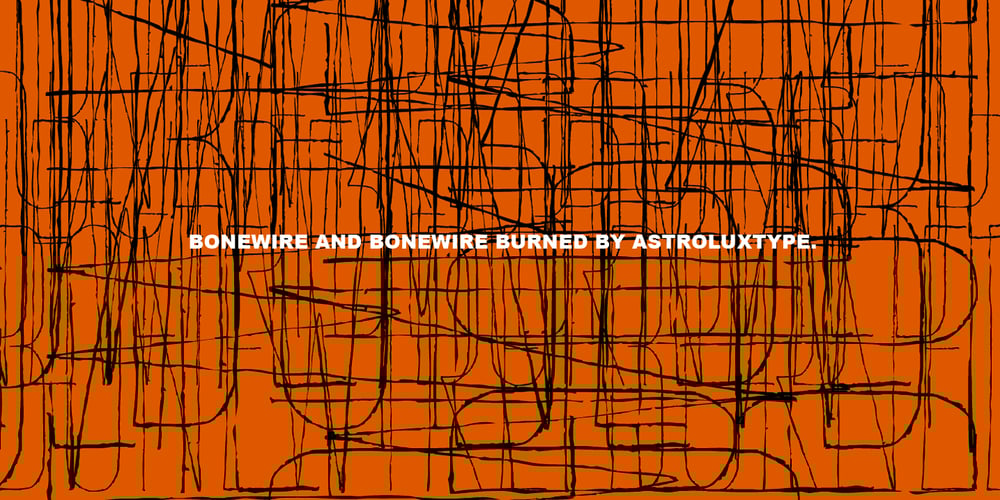
Bonewire Font Family was designed by Glenn Parsons and published by astroluxtype. Bonewire contains 2 styles and family package options. Thin, Ultra Condensed, Burned. Bonewire is distressed, shaky, rough, hand drawn. Title with it. Create graphics with it. Create patterns with it. Backgrounds. Frontgrounds. Double page spreadgrounds with it. Design with it. Headline with it. Text copy with it… no. Let it disappear like a signal at small sizes with Bonewire Burned (some call that Thin, or Ultra Condensed?) Bonewire Regular is the heavy version and Burned is the vampire thin version.